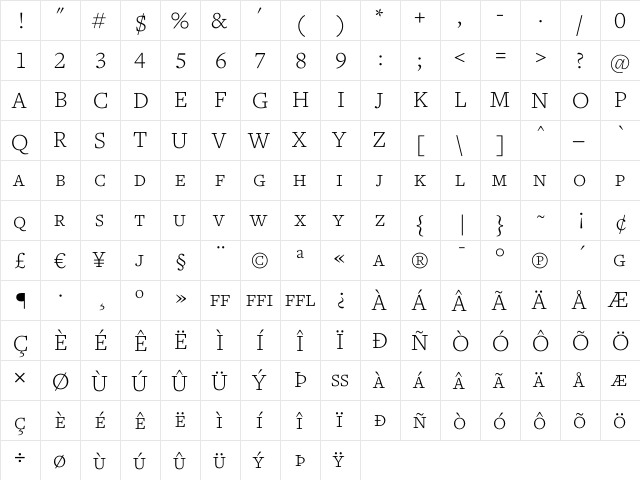
Freight Text Light SC
| Foundry | Joshua Darden & Phil's Fonts, Inc |
| Designer | Joshua Darden |
Design Context for Freight Typeface
Freight offers clean, dependable letterforms without strong stylistic allegiance, making it a practical choice for designers who need flexibility. The delicate stroke weight brings airiness and refinement to layouts.
Pro Tip: Pair Freight with a font of contrasting weight or personality to build a more expressive typographic hierarchy.